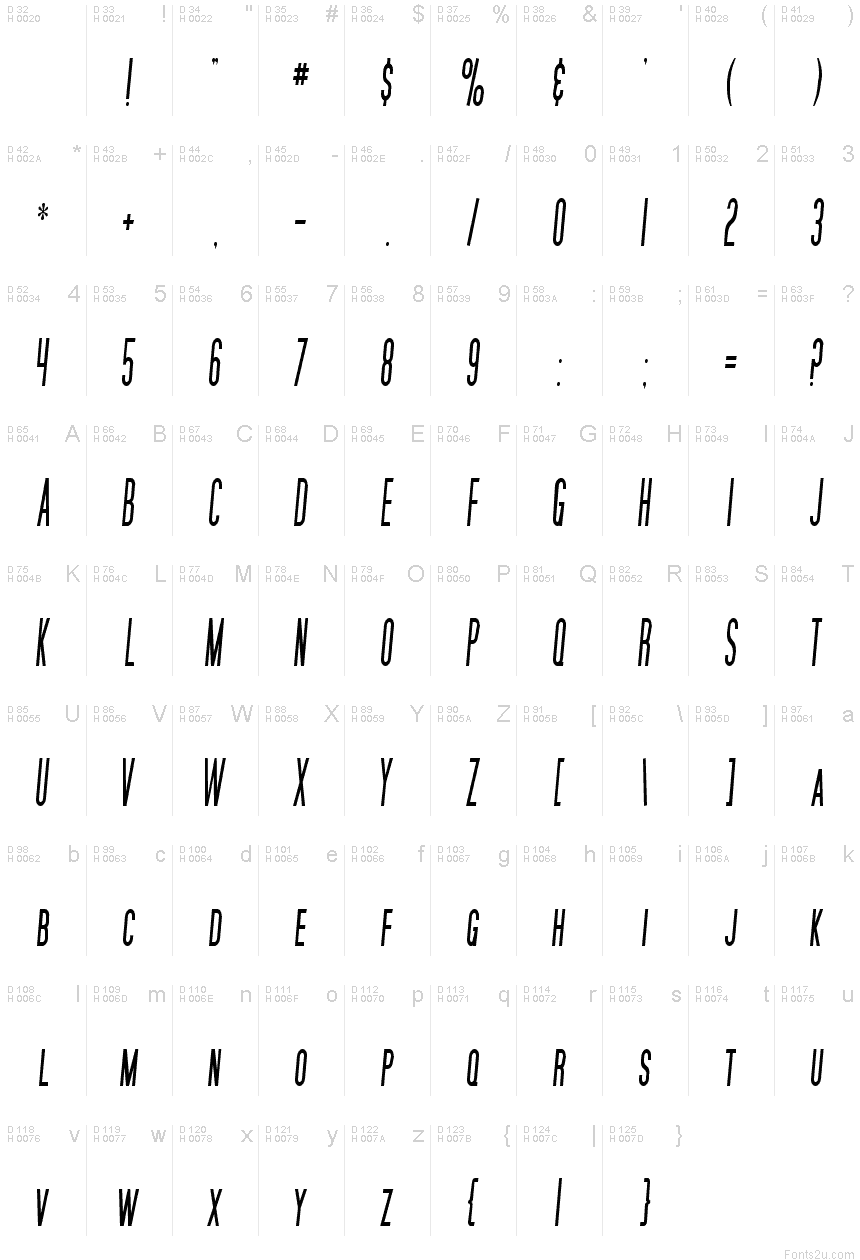
SF Movie Poster Condensed Italic
SF Movie Poster Condensed Italic, created by ShyWedge in 1999, is a free condensed italic sans serif with a straight-from-the-marquee movie-poster feel. The letters are tall, narrow, and sharply slanted, with smooth, stripped-down shapes that lean hard into speed and drama rather than neutrality.
It fits naturally in film posters, teaser one-sheets, DVD covers, festival branding, and trailer title cards, where that compressed sweep can carry a lot of attitude in very little space. Used as a free font for cover lines, bold subheads, or short logotypes, it works best when you want a quick hit of cinematic urgency without ornate detail.